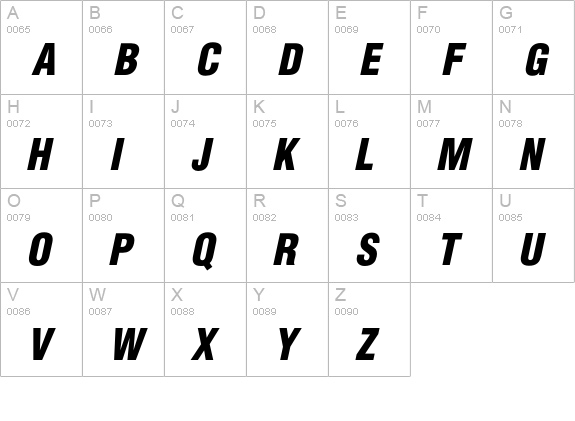
HallmarkeCondBlackOblique Font Details
HallmarkeCondBlackOblique is a visually striking and modern font that brings a touch of sophistication to any design project. With its sleek and angular letterforms, this font exudes confidence and elegance. The bold and oblique style adds a dynamic element, making it perfect for capturing attention and making a statement. This font is an ideal choice for a variety of design applications, including logos, headlines, posters, and branding materials. Its versatility makes it suitable for both digital and print projects, ensuring that your message is conveyed with impact and style. One of the standout features of HallmarkeCondBlackOblique is its free availability. You can easily download this font at FontsMarket.com, where it is offered as a complimentary resource for designers and creatives alike. This accessibility allows you to incorporate this font into your projects without any additional cost, making it an attractive option for those on a budget. Whether you're looking to add a touch of sophistication to your next design endeavor or simply want to experiment with a bold and eye-catching font, HallmarkeCondBlackOblique is a fantastic choice. Its freely available nature and striking aesthetic make it a valuable asset for designers seeking to make a lasting impression.